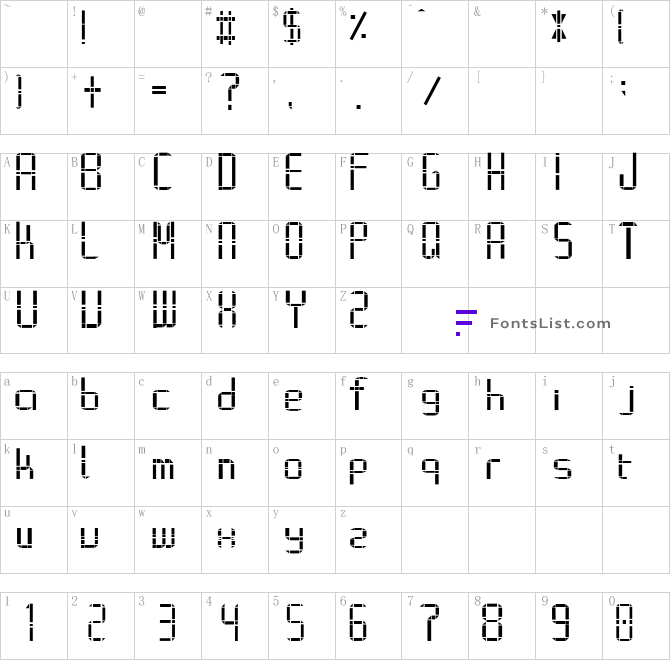
- Font Name:Alphabet_02
- Subfamily:Alphabet_02
- Full Name:Alphabet_02
- PostScript:Alphabet_02
Alphabet_02.ttf is a very beautiful artistic font, Alphabet_02.ttf is widely used in the design and printing of various books and pictures,Alphabet_02.ttf has a strong visual impact,Alphabet_02.ttf is a commonly used font in newspapers, magazines and books, and is used in posters, e-commerce Poster design, store design, logo design, font design and other fields.Alphabet_02.